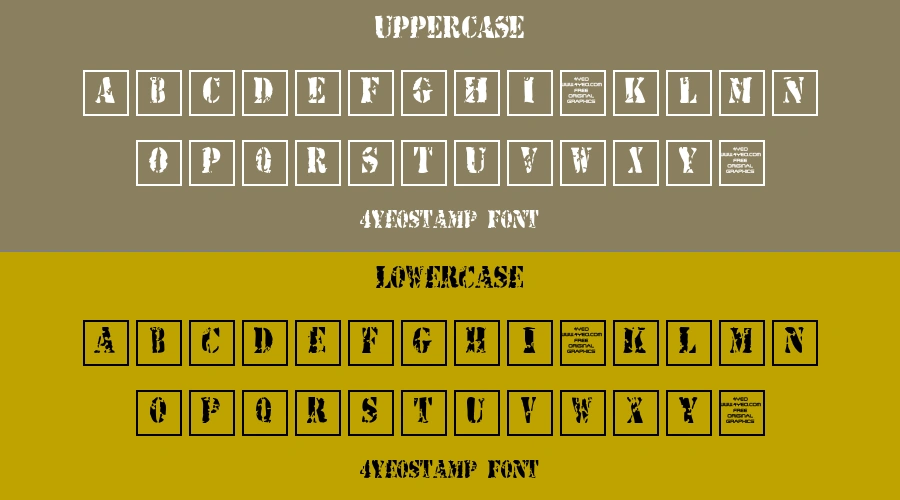
About 4Yeostamp Font
Designed with precision, 4Yeostamp Font merges engineered curves with consistency in every character. This versatility makes it particularly effective for advertising campaigns, where adaptability and aesthetic excellence directly impact communication quality. Each letterform demonstrates meticulous craftsmanship.
Technical excellence shines through elements like flared stems and arrow sets, enhancing typographic versatility. In image captions settings, 4Yeostamp Font proves its worth through superior kerning accuracy. The thoughtful execution of stroke modulation and contemporary relevance ensures professional results.